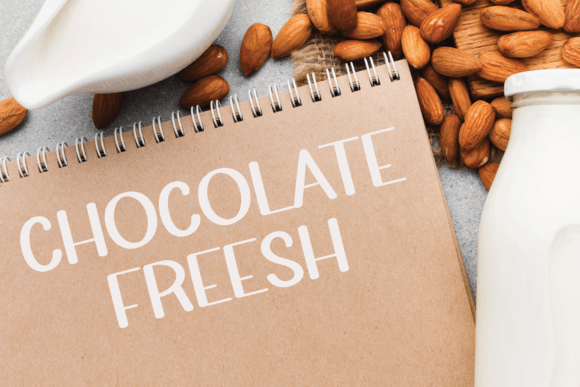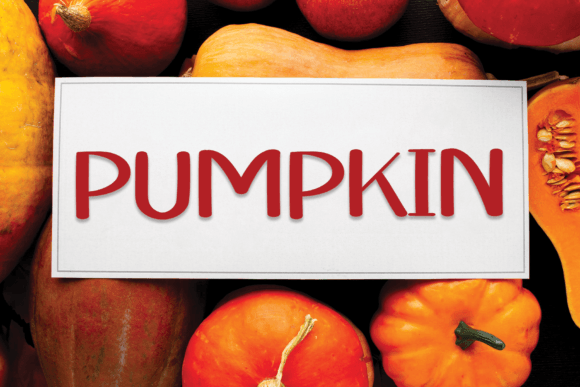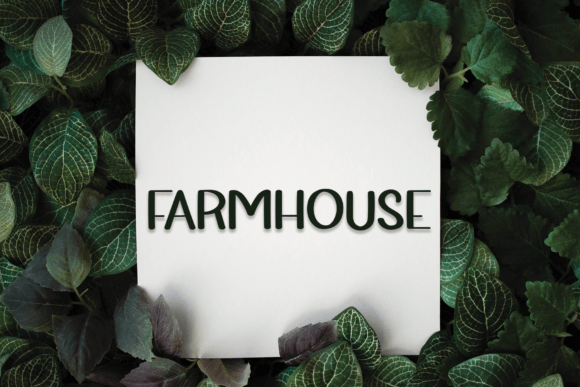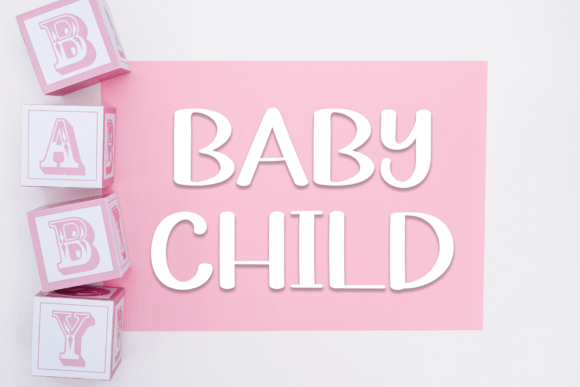
Happy Sunday Font: The Perfect Companion for Your Creative Projects
Are you tired of using the same old fonts for your crafts, digital designs, and greeting cards? Look no further than the Happy Sunday Font! This fun and friendly handwritten font is the perfect addition to any creative project, and its versatility makes it an excellent choice for a wide range of occasions.
What Makes Happy Sunday Font So Special?
Happy Sunday Font is a beautifully designed handwritten font that exudes warmth and friendliness. Its unique and playful style makes it perfect for adding a personal touch to your projects. Whether you’re creating a greeting card, crafting a digital design, or working on a presentation, this font is sure to make your work stand out.
Key Features of Happy Sunday Font
- Handwritten style: Happy Sunday Font has a beautiful, handwritten style that gives your projects a personal and unique touch.
- Fun and friendly: The font’s playful and cheerful vibe makes it perfect for creating greeting cards, invitations, and other celebratory materials.
- Versatile: Happy Sunday Font can be used for a wide range of projects, from crafts and digital designs to presentations and more.
- Easy to read: Despite its playful style, Happy Sunday Font is easy to read, making it perfect for use in body text or headings.
Uses for Happy Sunday Font
Happy Sunday Font is an incredibly versatile font that can be used for a wide range of projects. Here are just a few ideas to get you started:
- Crafts: Add a personal touch to your crafts, such as scrapbooking, card making, or DIY home decor projects.
- Digital design: Use Happy Sunday Font in your digital designs, such as social media graphics, blog posts, or email newsletters.
- Presentations: Add some personality to your presentations, such as lectures, workshops, or sales pitches.
- Greeting cards: Create personalized and unique greeting cards for special occasions, such as birthdays, holidays, or weddings.
Tips for Using Happy Sunday Font
Here are a few tips for getting the most out of Happy Sunday Font:
- Experiment with sizes and colors: Try out different sizes and colors to see what works best for your project.
- Mix and match with other fonts: Combine Happy Sunday Font with other fonts to create a unique and visually interesting design.
- Use it for headings and titles: Happy Sunday Font is perfect for use in headings and titles, where its playful style can really shine.
Why Designers and Crafters Love Happy Sunday Font
Designers and crafters alike love Happy Sunday Font for its unique and playful style. Here are just a few reasons why:
- It’s versatile: Happy Sunday Font can be used for a wide range of projects, making it a great addition to any design or crafting toolkit.
- It’s fun: Happy Sunday Font adds a playful touch to any project, making it perfect for designers and crafters who want to add some personality to their work.
In conclusion, Happy Sunday Font is a fun and friendly handwritten font that’s perfect for adding a personal touch to your creative projects. Its versatility, ease of use, and playful style make it an excellent choice for designers and crafters alike. Whether you’re working on a craft, digital design, presentation, or greeting card, Happy Sunday Font is sure to become your new favorite font.